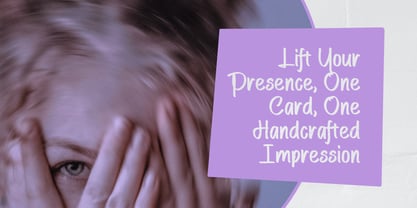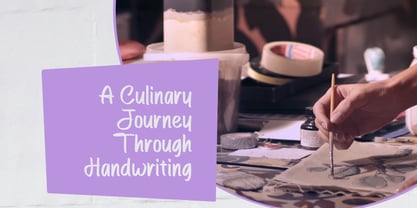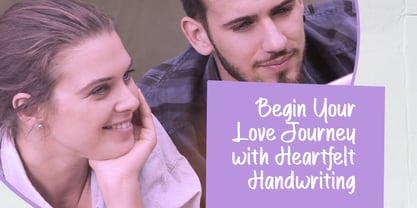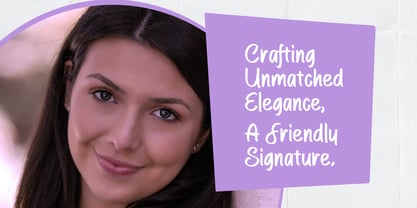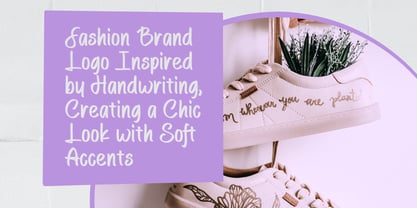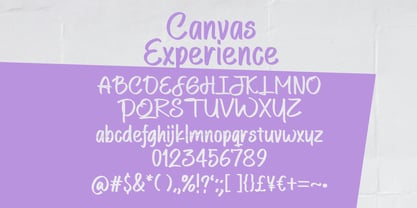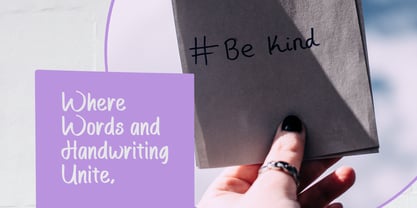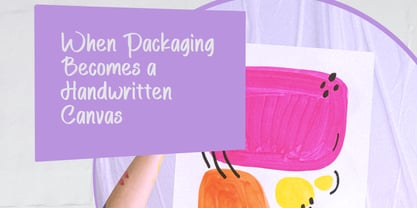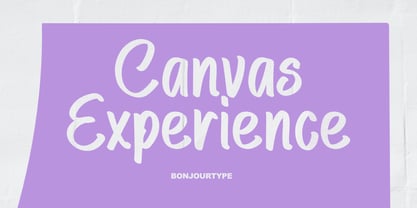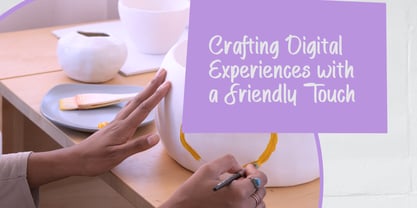
Canvas Experience
Canvas Experience is a charming handwritten font with a natural, organic style and a calm, friendly personality. Its smooth curves and playful letterforms bring a fresh and inviting touch to any design, making your creative projects feel more personal and authentic.
Perfect for display projects such as book covers, presentations, product packaging, logos, quotes, branding materials, and promotional designs, CanvasExperience also works beautifully for Cricut projects, shirts, stickers, greeting cards, social media graphics, and other creative applications. Its versatile handwritten appearance makes it easy to create eye-catching and memorable designs filled with warmth and character.